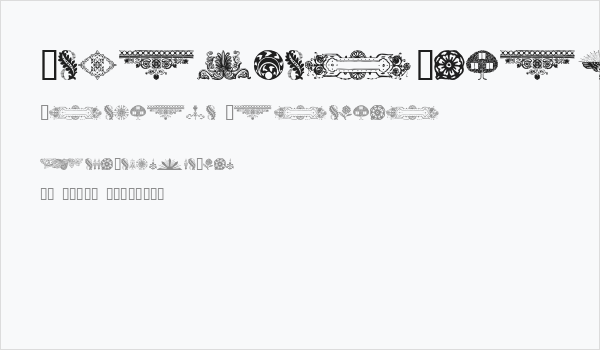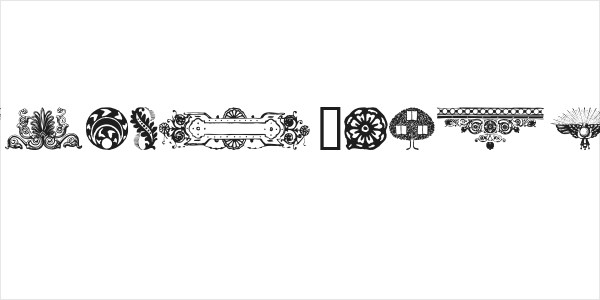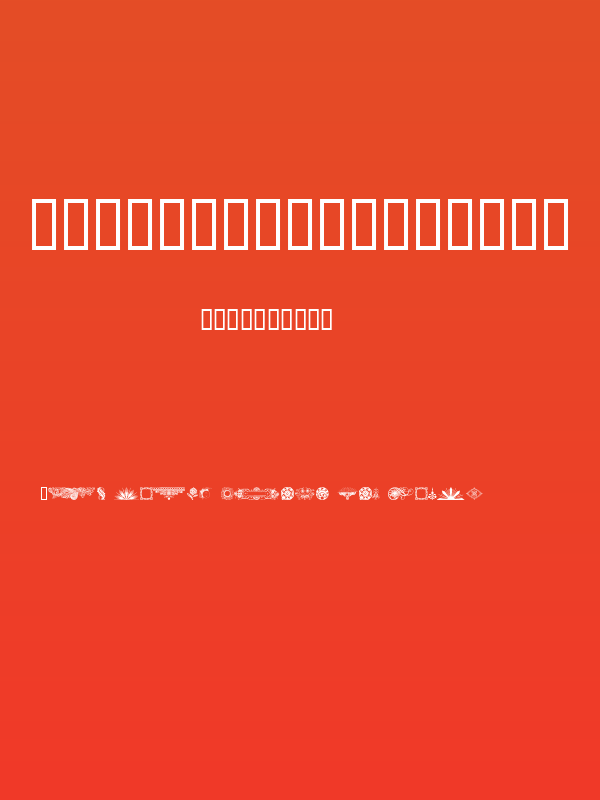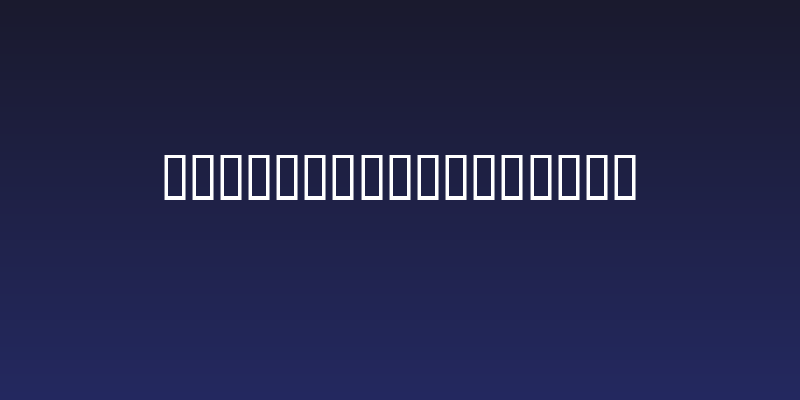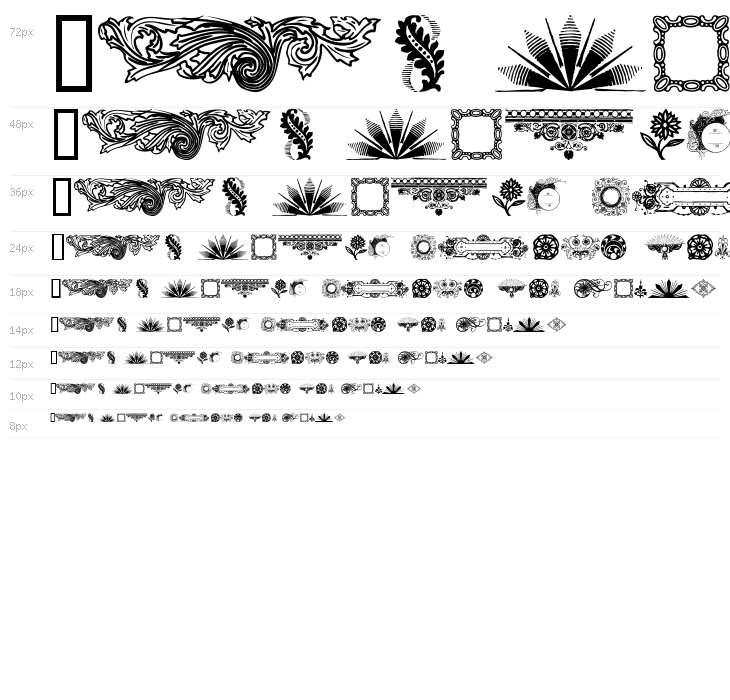
DesignerMotifsTwo Font
DesignerMotifsTwo Description
A collection of intricate, ornamental motifs and decorative flourishes inspired by vintage and classical design elements, featuring floral patterns, scrollwork, and symmetrical embellishments.
| Overall Style | Vintage, Decorative |
| Use Case | Logos, Borders, Invitations, Certificates, Decorative accents |
| Proposed Projects | Wedding invitations, certificates, book covers, packaging, branding, decorative borders, and vintage-themed designs. |